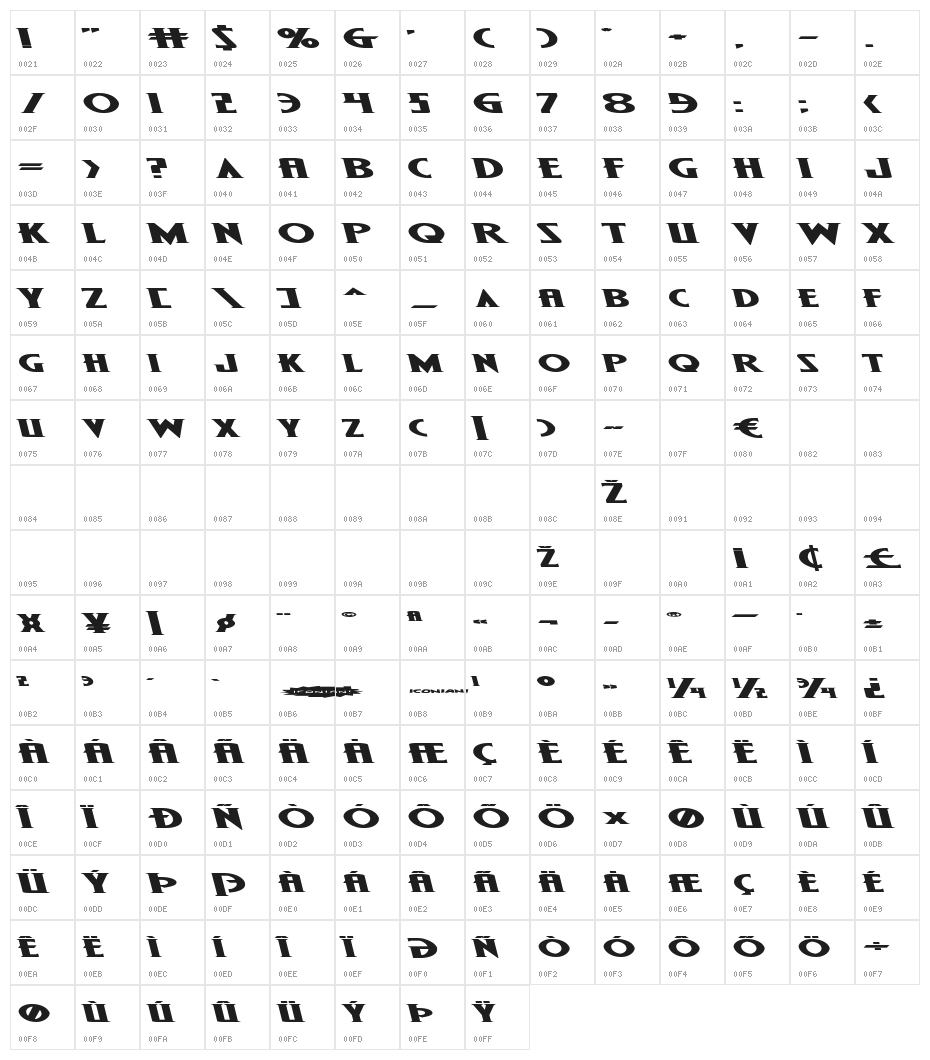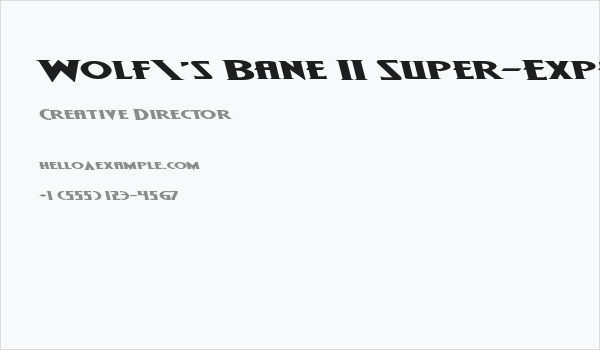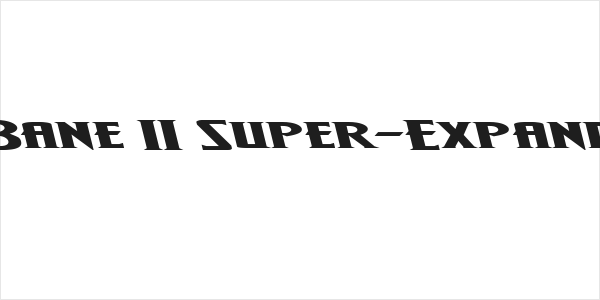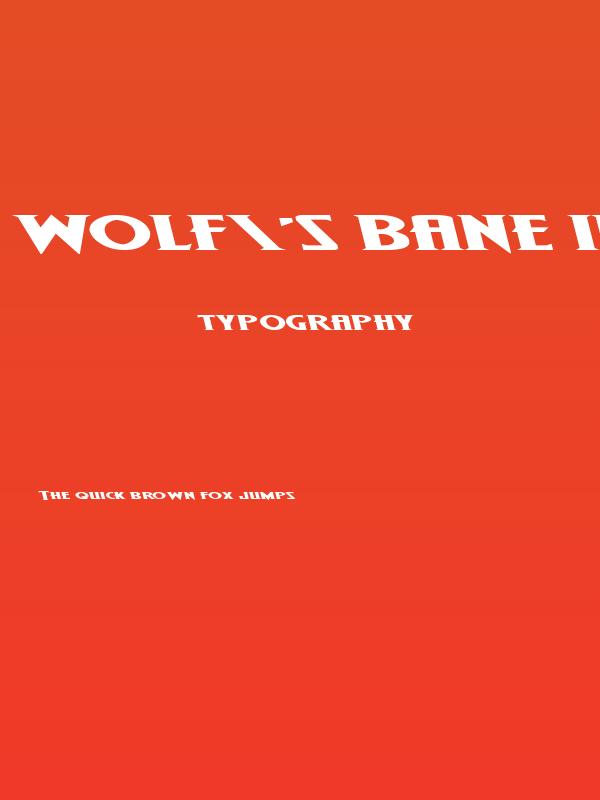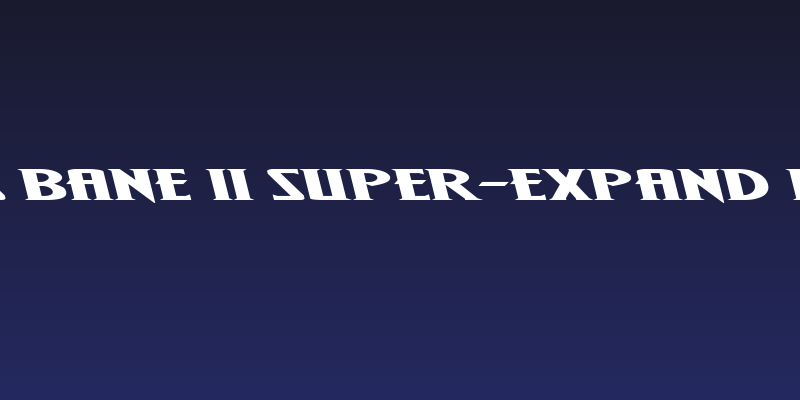
Wolf's Bane II Super-Expand Leftalic Font
Wolf's Bane II Super-Expand Leftalic Description
This font features a bold and dynamic design with a strong presence. The characters are heavily stylized with sharp angles and a distinct slant to the left, giving it a sense of motion and energy. The strokes are thick and consistent, creating a powerful visual impact. The font is highly decorative, making it suitable for attention-grabbing headlines or logos. Its expanded width adds to its dramatic appearance, while the character spacing is relatively tight, enhancing its boldness. The overall style is modern and edgy, perfect for projects that require a striking and unconventional look.
| Proposed Projects | Ideal for use in branding, posters, video game titles, or any project needing a bold, modern aesthetic. |